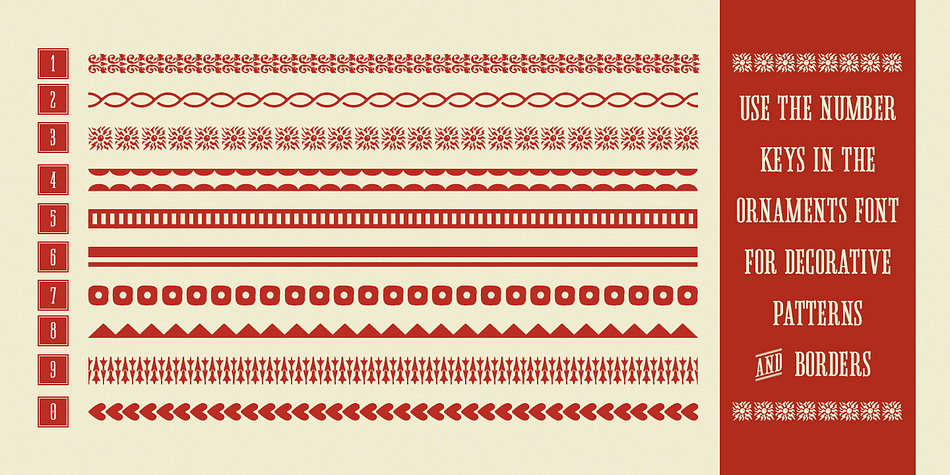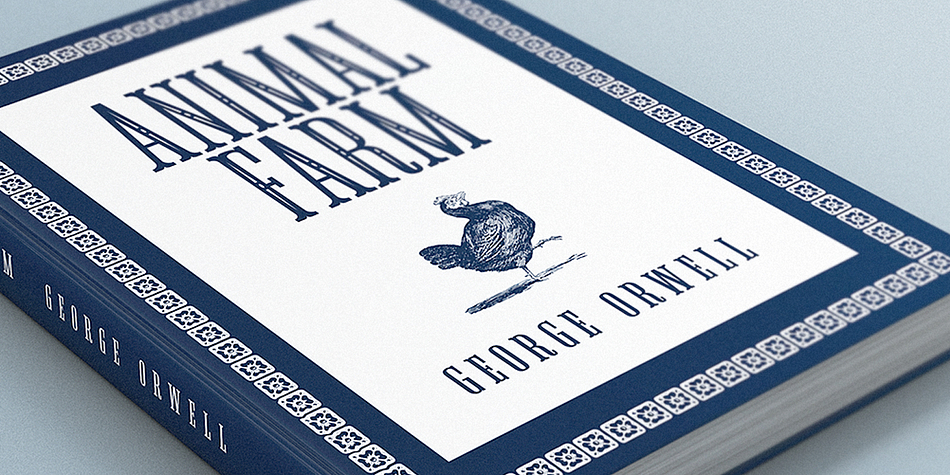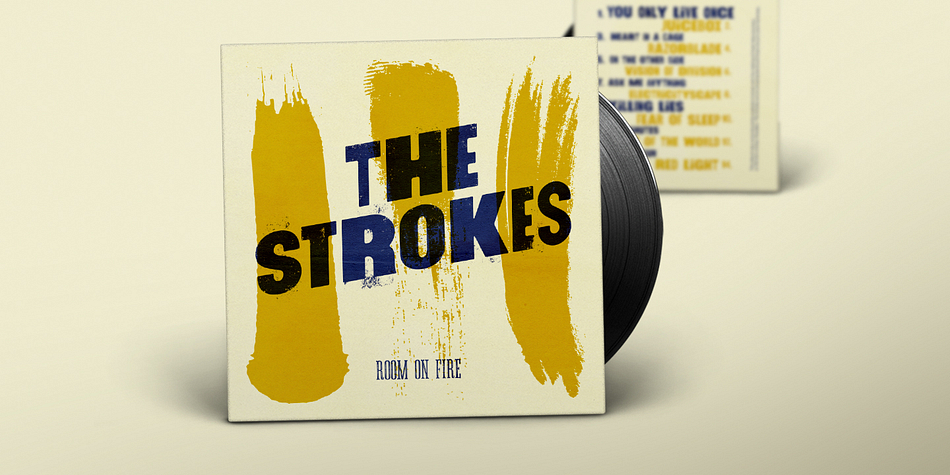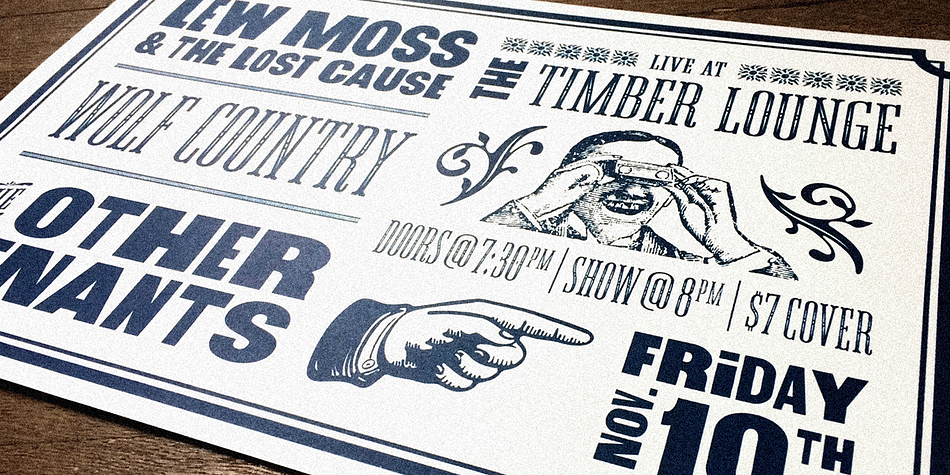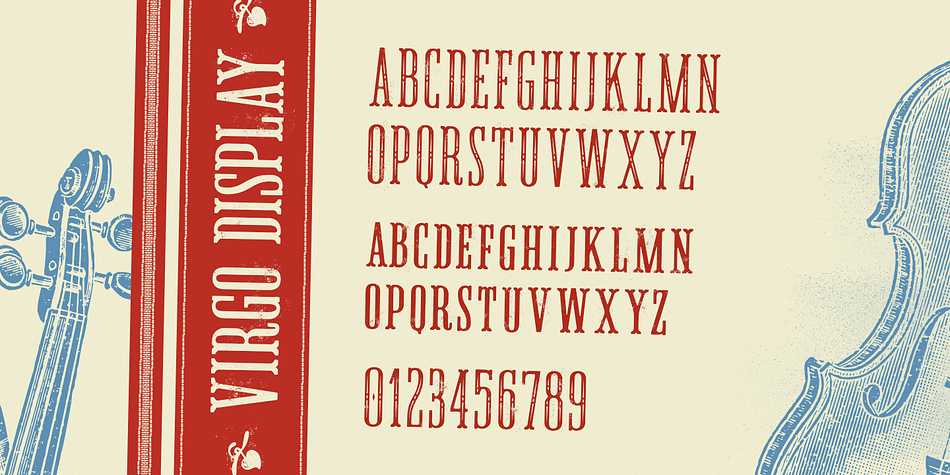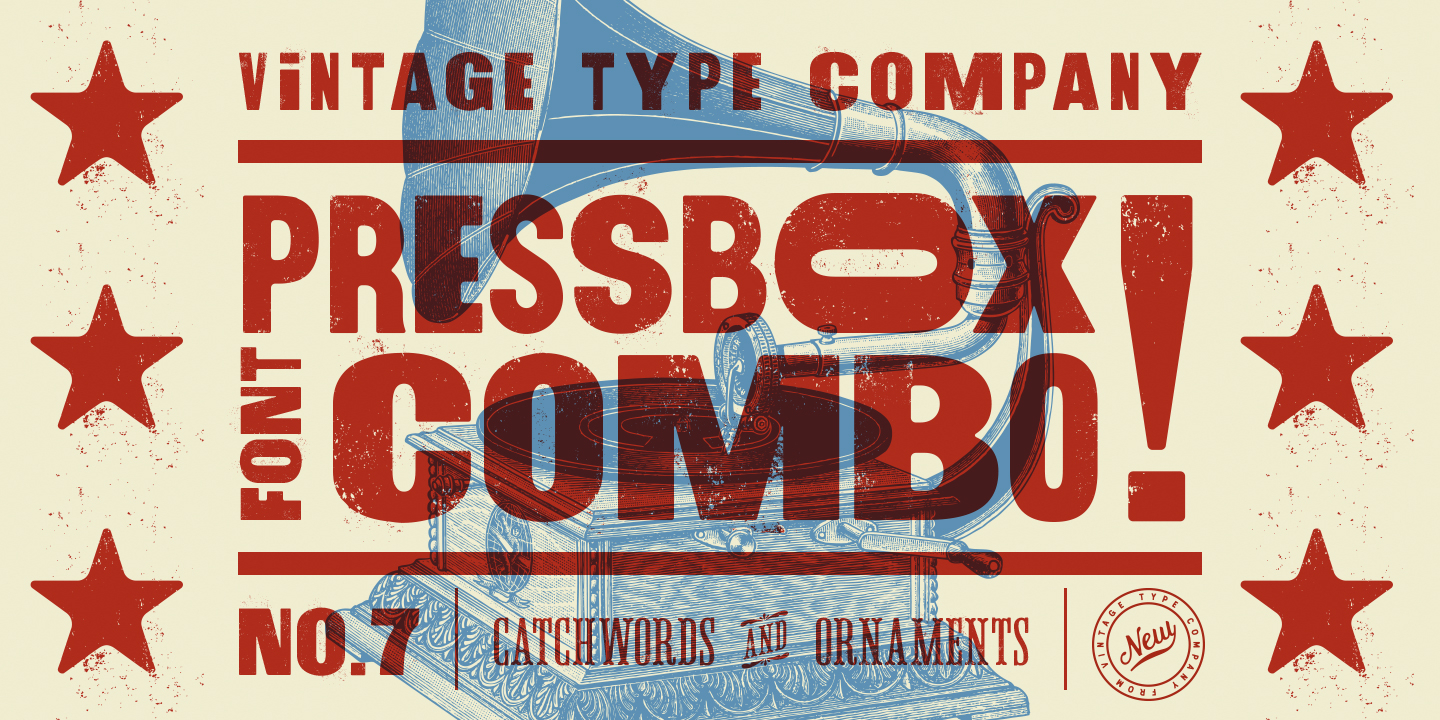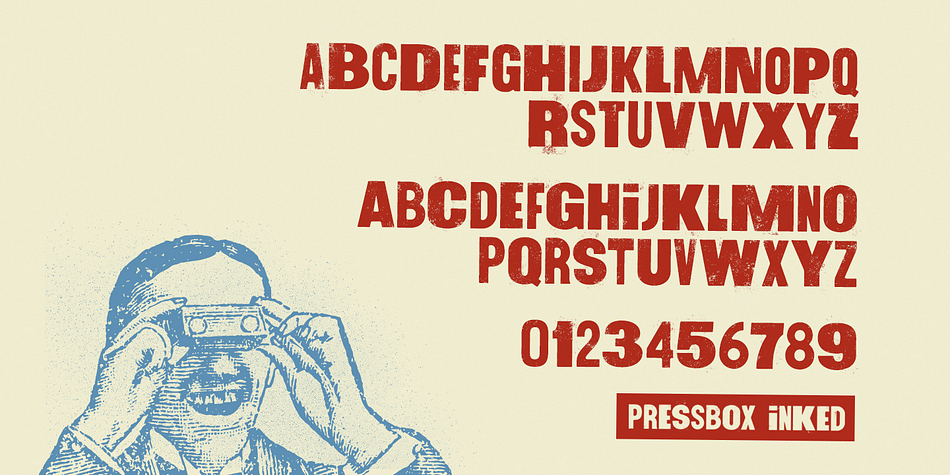
Pressbox Font Combo
Pressbox Font Combo is a multiple classification font family. This typeface has six styles and was published by Vintage Type Company.
PressBox Combo Font is an Americana, metal-type, inspired font family consisting of 2 main fonts and a bonus ornamental font, each of which comes with an alternative, inked style.
With PressBox Display, you can switch the width of your glyphs simply by switching between upper & lower case. The secondary font, Virgo Display, is a condensed, stylized serif with spurs, and comes in all-caps with a small-cap lowercase.
The bonus font, Virgo Ornaments comes with a load of catchwords, ornaments, and decorative elements that can be used for ornamental borders.